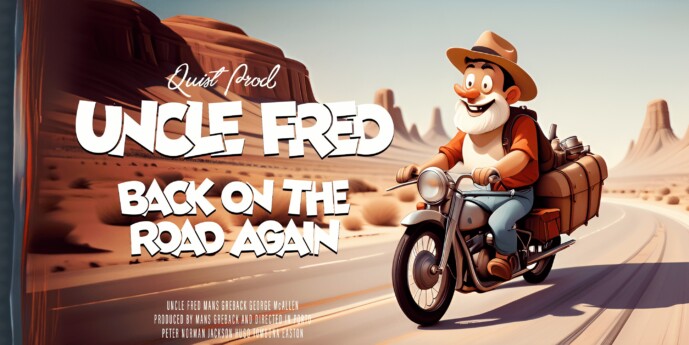
Mickey Mouse Font
Designer: Mans Greback
Mickey Mouse Font is a delightful blend of humor and optimism, designed to capture the essence of classic cartoons.